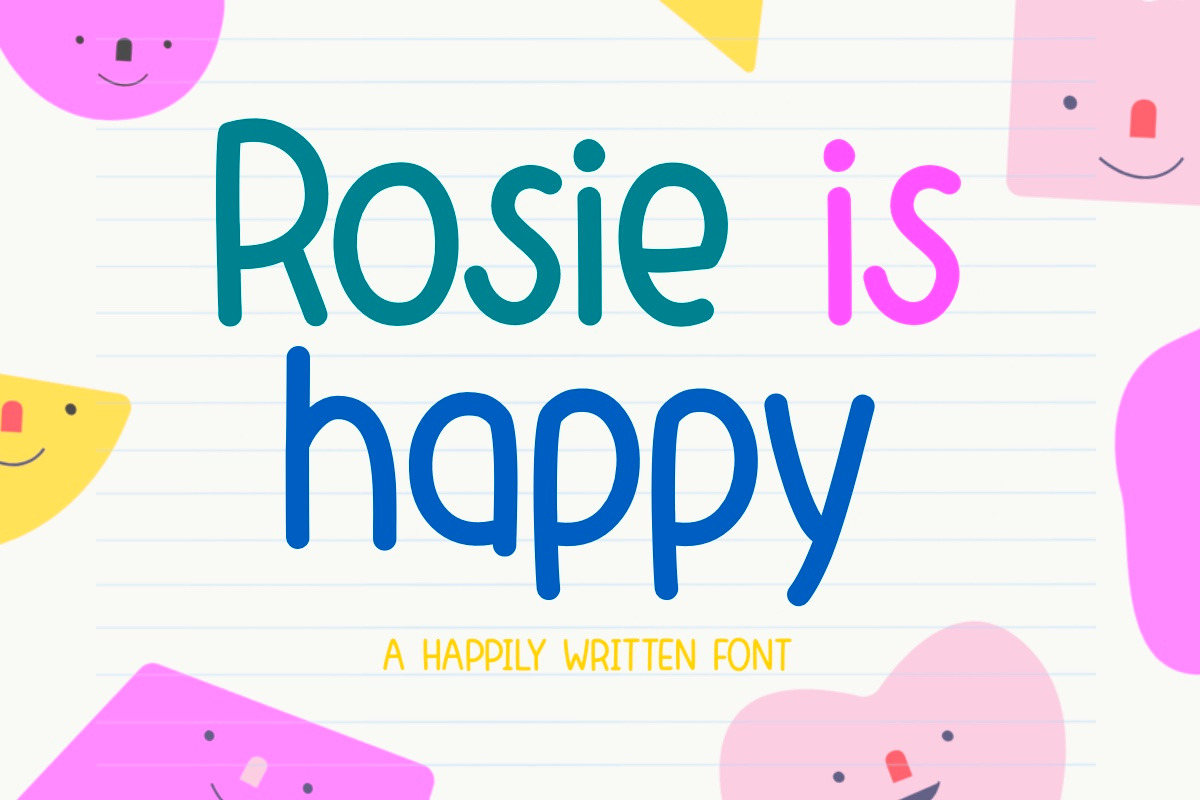
Rosie is Happy handwriting font
Rosie is Happy, a cute and simple handwritten font. You can use this font in various projects - blog posts, digital planner, invitations, greeting cards, planners, photo albums, decorations and much more. Thank you :)